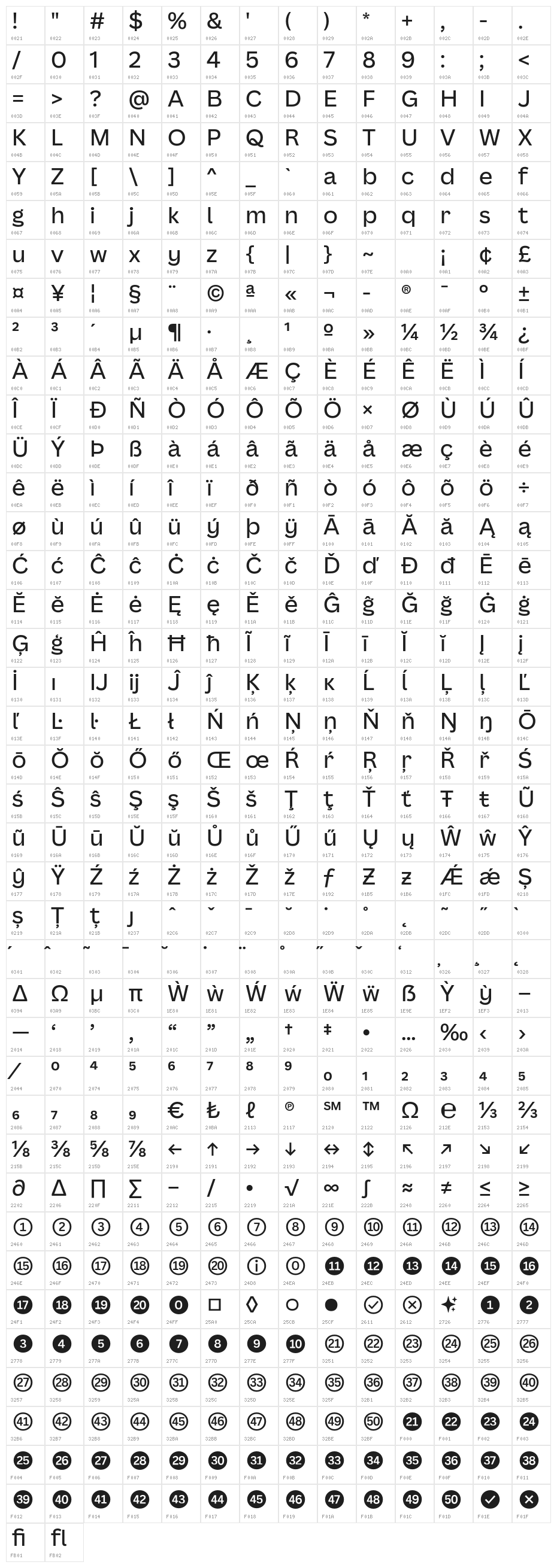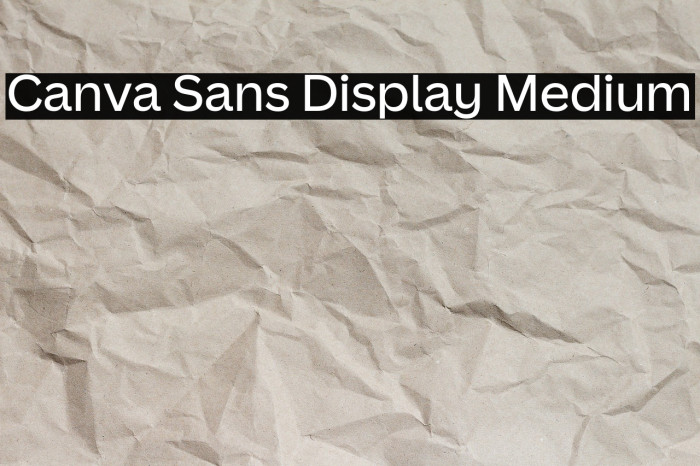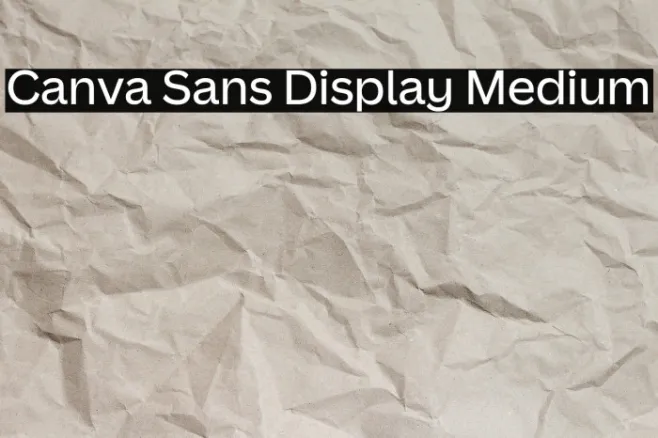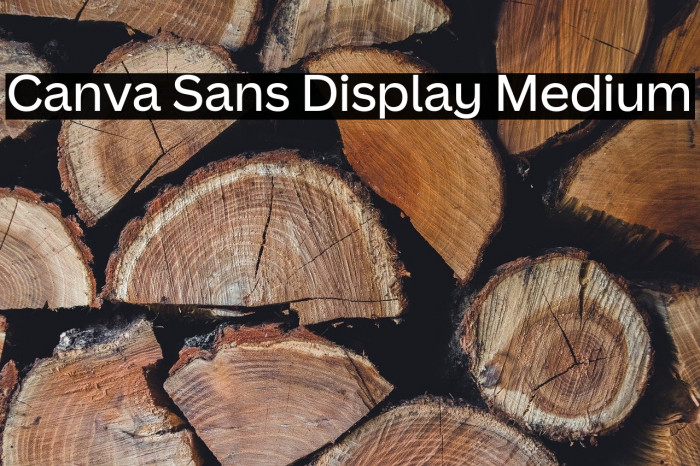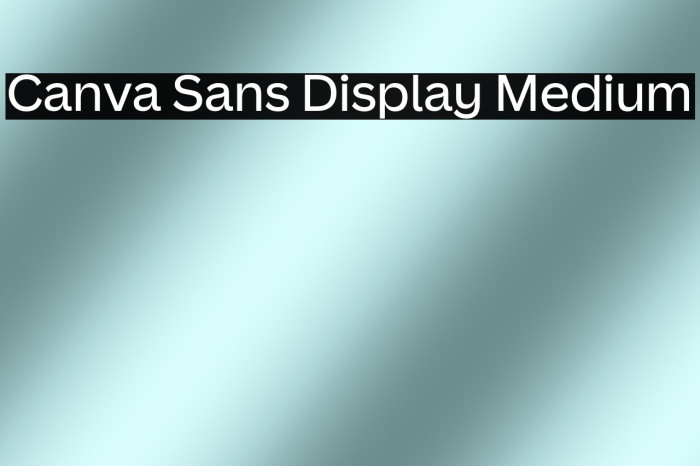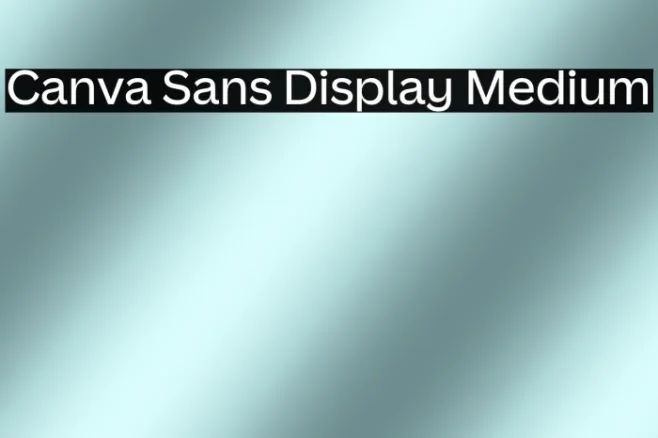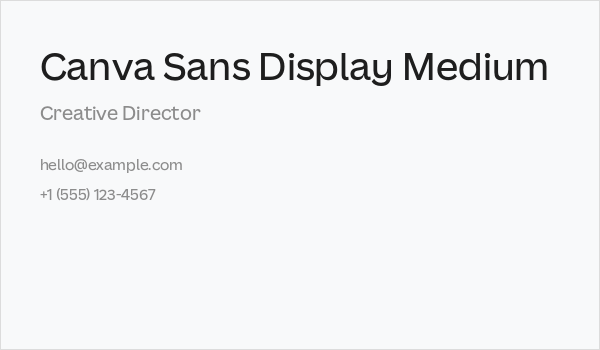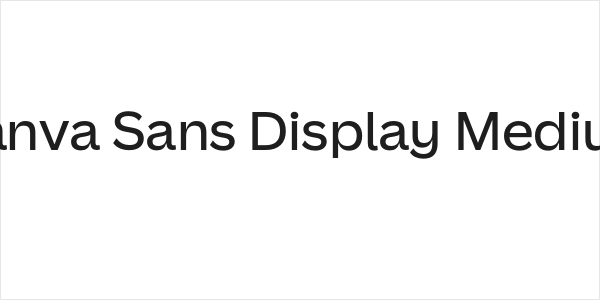
Canva Sans Display Medium Font
Canva Sans Display Medium Description
This typeface is a clean and modern sans-serif font characterized by its geometric shapes and balanced proportions. The letters are evenly spaced, providing a harmonious and readable appearance. The strokes are consistent in width, offering a uniform look across all characters. The font maintains a contemporary aesthetic, making it suitable for a wide range of applications. Its clarity and simplicity make it ideal for both digital and print media, ensuring legibility at various sizes. The numerals and special characters are designed to match the overall style, maintaining the font's cohesive look.
| Use Case | Headlines, Body text, Logos |
| Proposed Projects | Ideal for branding, web design, advertising, and editorial projects where clarity and modernity are key. |